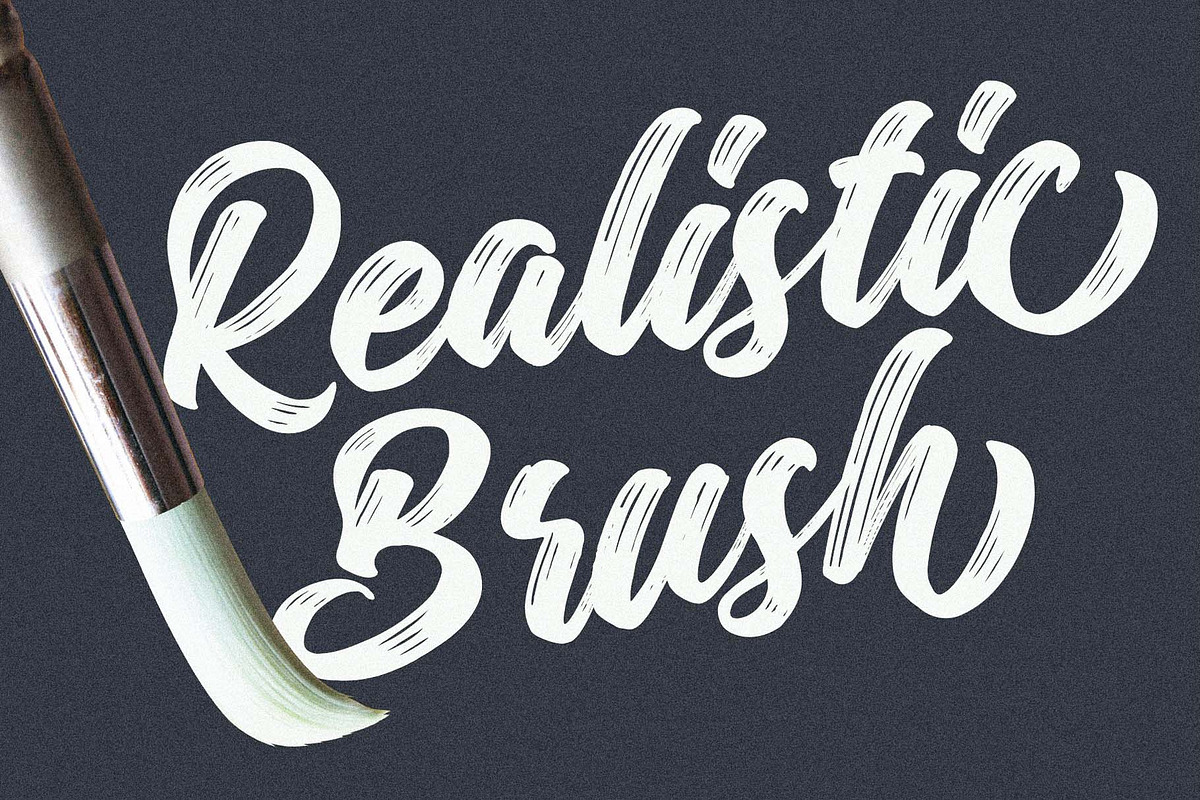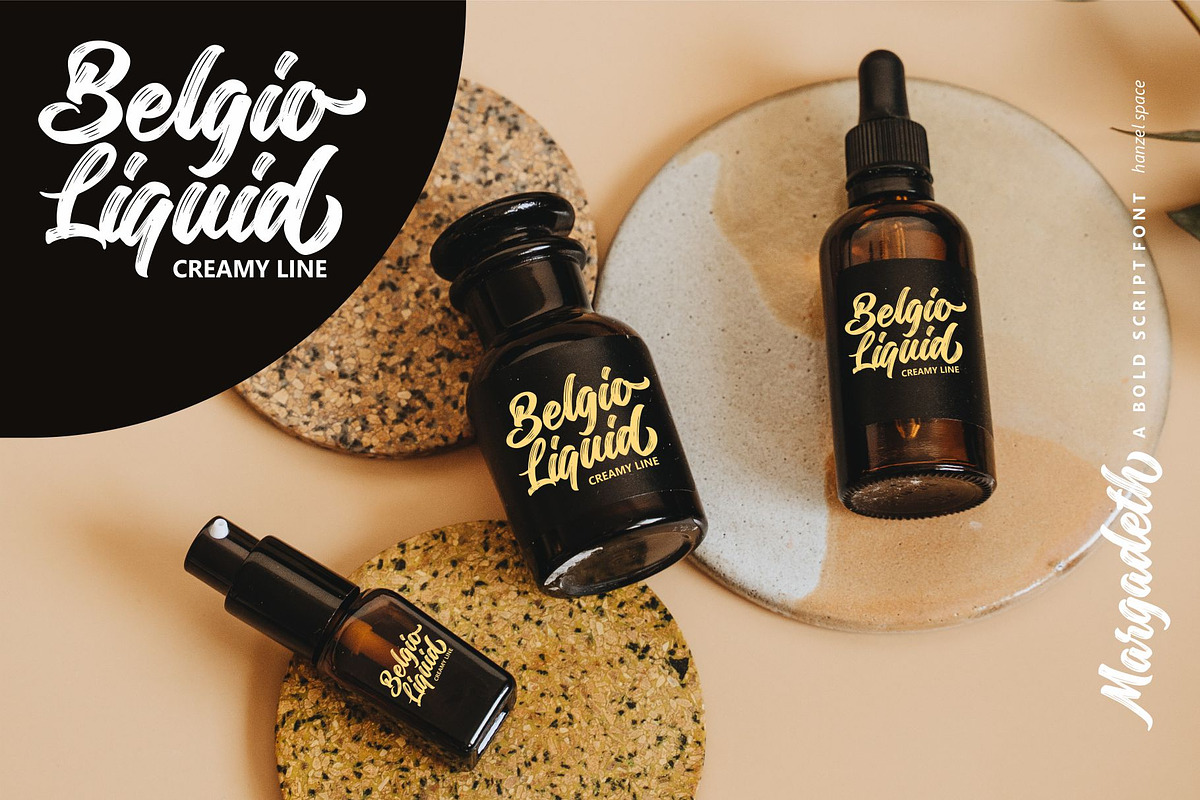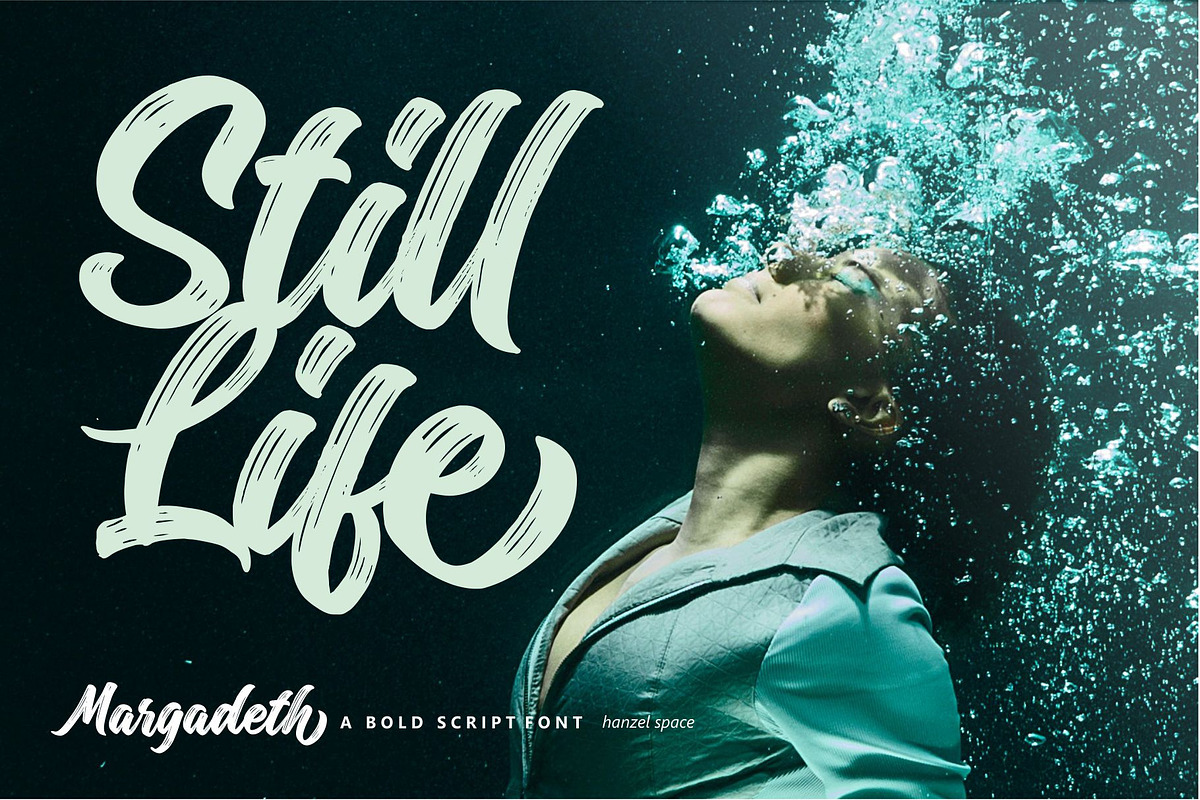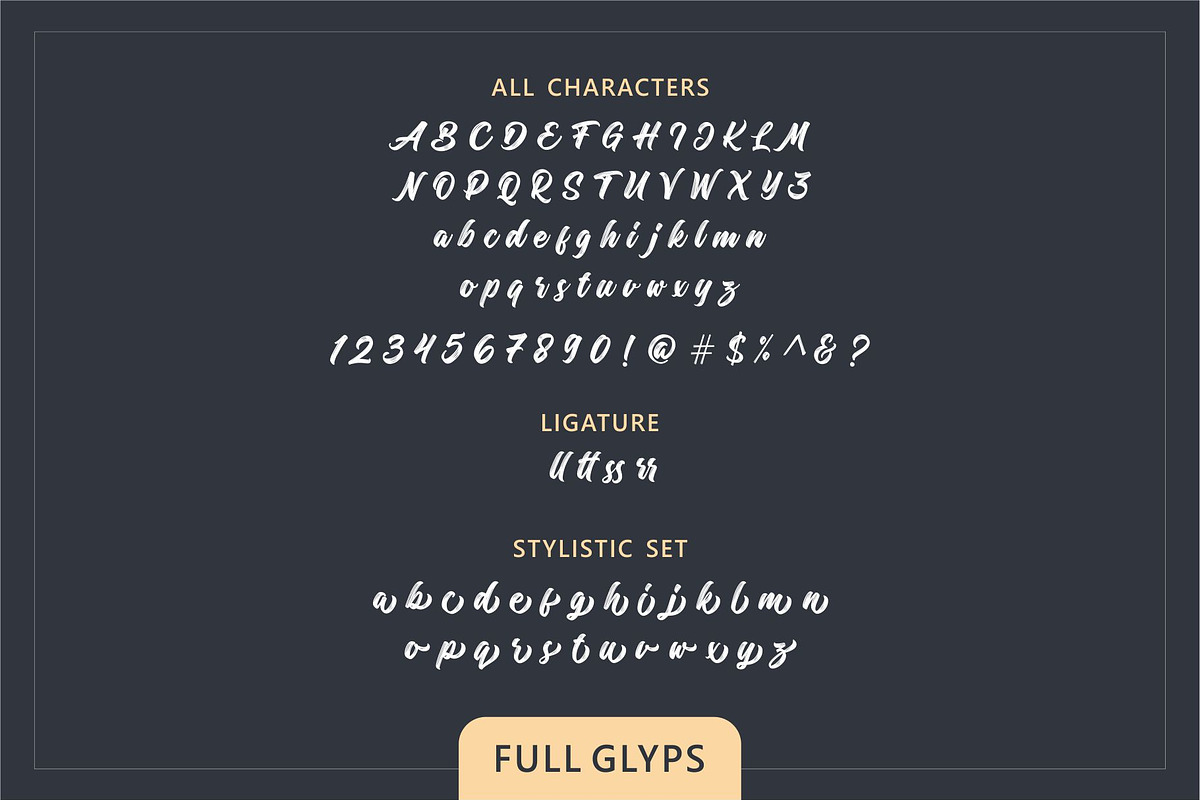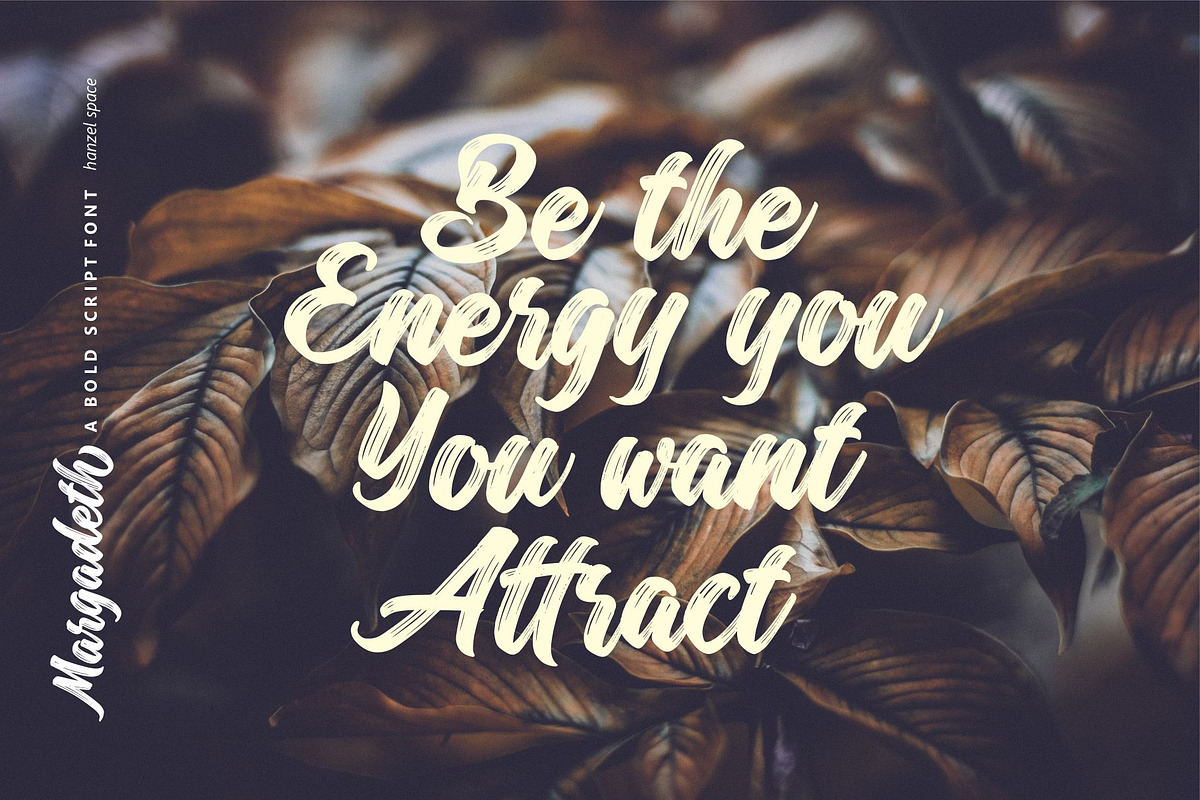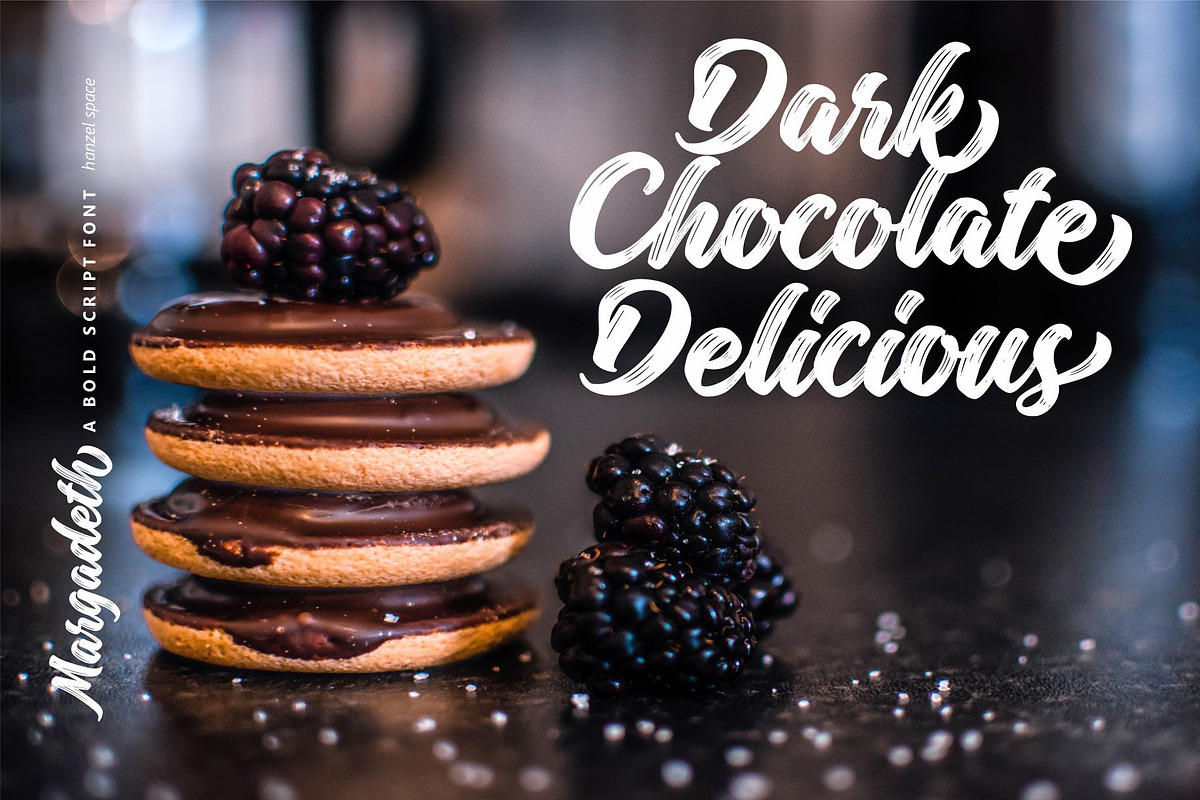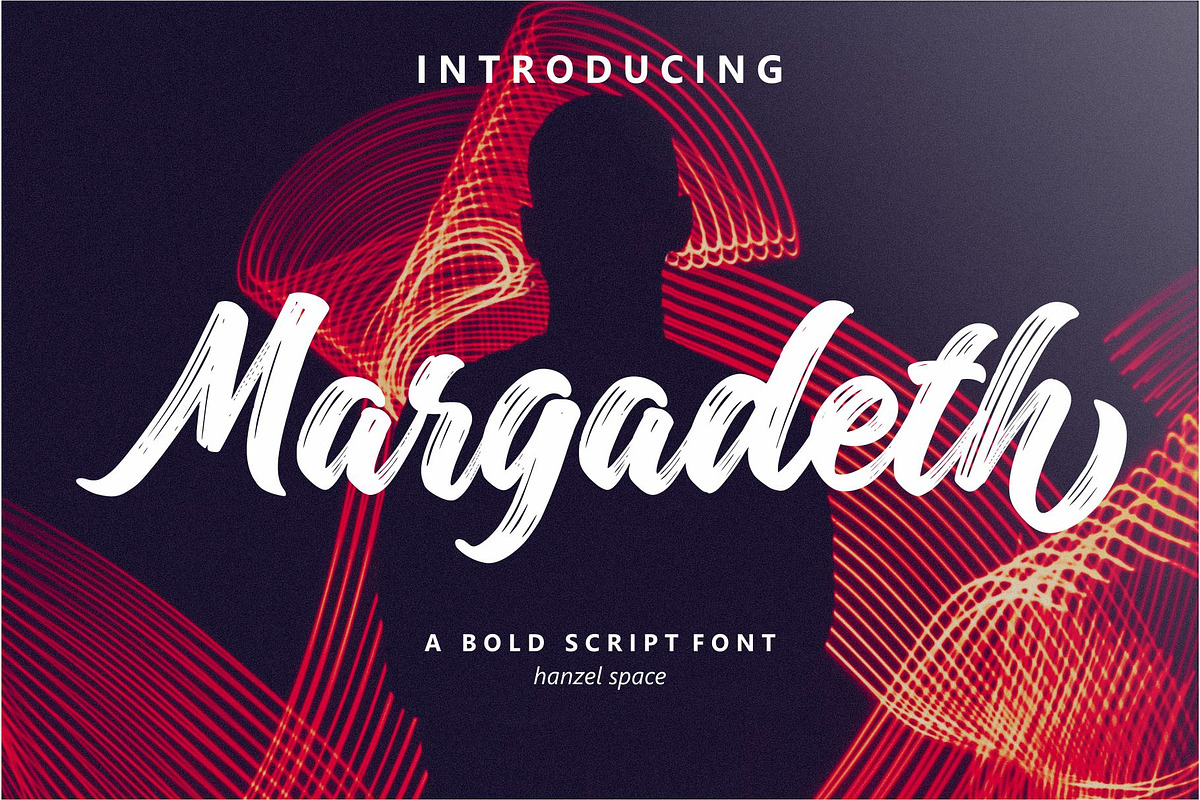
Margadeth Bold Script
Introducing, Margadeth Bold Script
Margadeth is a bold script that contain Uppercase, Lowercase, Numerals, Accents, Punctuations, 5 set alternates, Ligatures, Swash, and also Underline. You can use to make a logo for branding, best for apparel design, and quotes. This font also already PUA Encoded.
- Opentype feature, including 5 Set Alternates, Ligatures, End Swash, and Underlines.
- Foreign Languages Support: ÀÁÂÃÄÅÇÈÉÊËÌÍÎÏÐÑÒÓÔÕÖØÙÚÛÜÝßàáâãäåæçèéêëìíîïðñòóôõöøùúûüýÿ